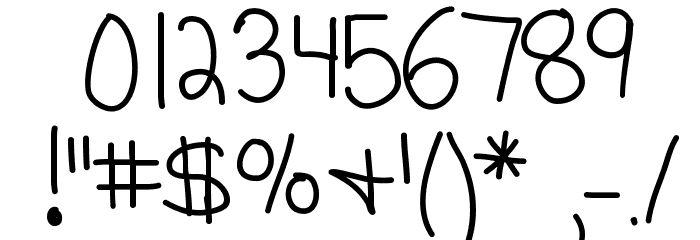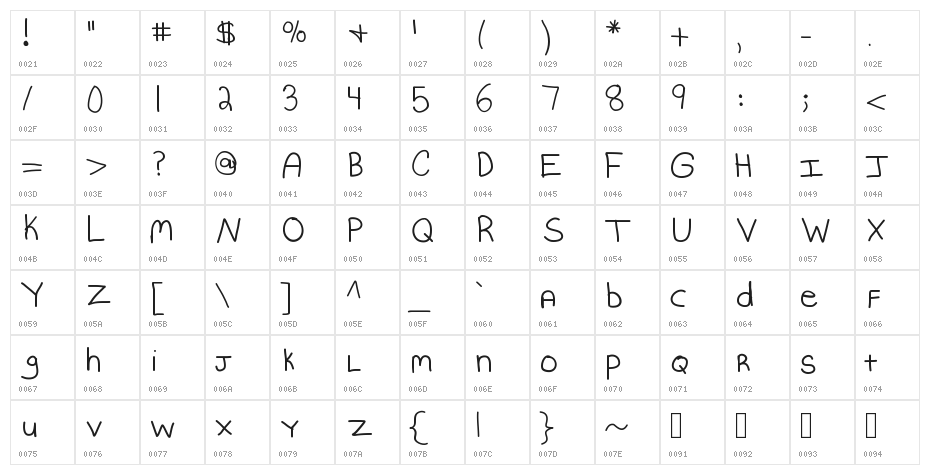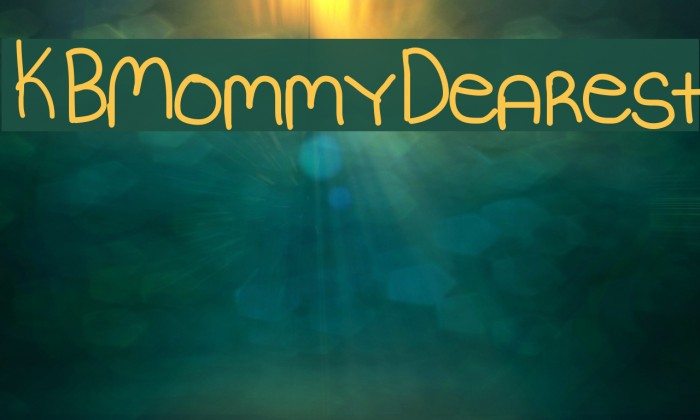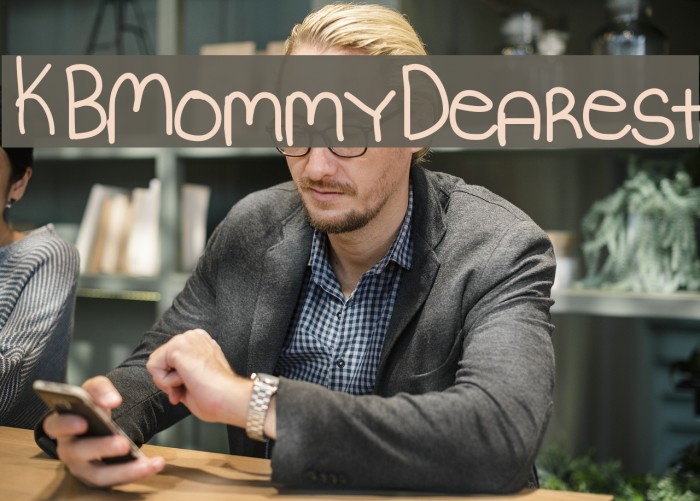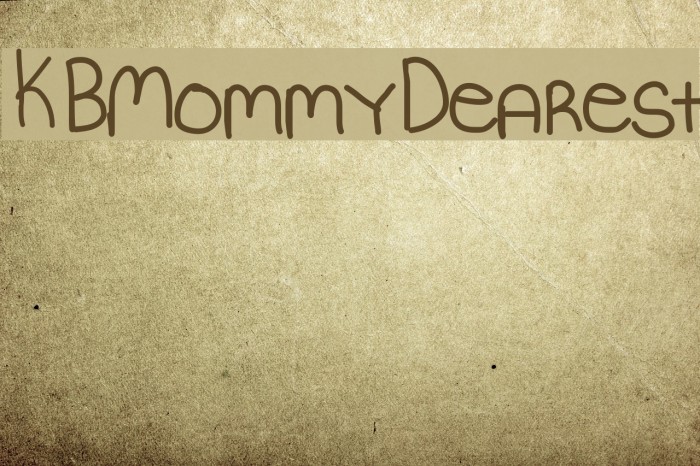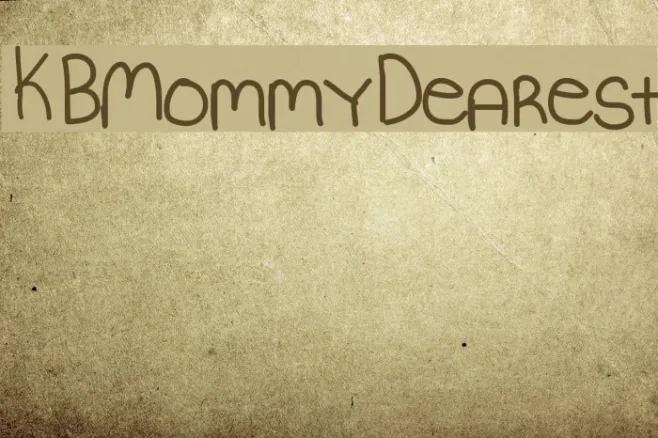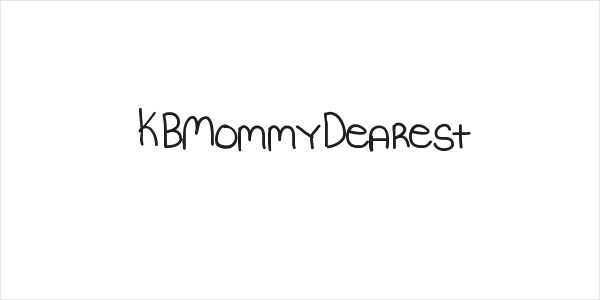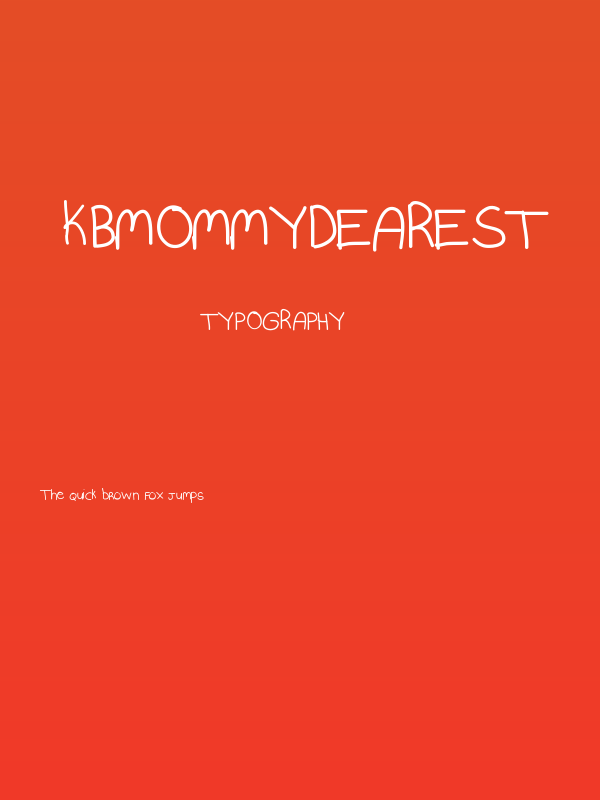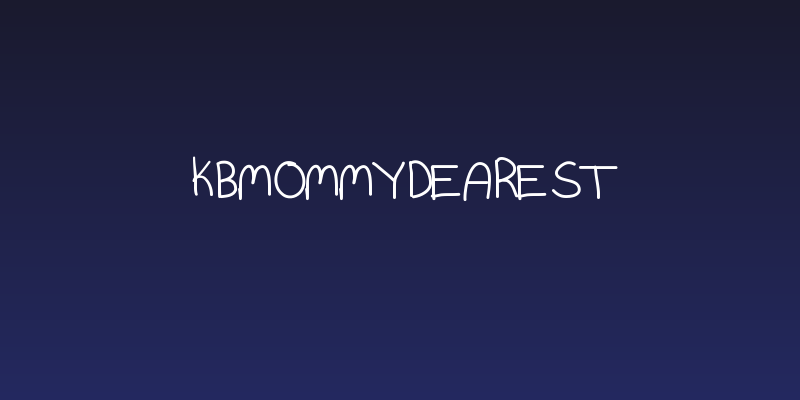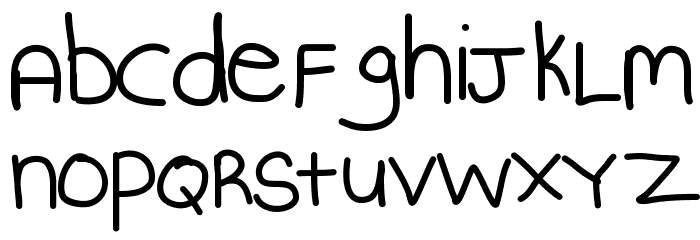
KBMommyDearest Font
KBMommyDearest Description
This playful and casual font features a handwritten style with a friendly and approachable appearance. The letters are rounded and slightly irregular, giving it a personal touch that mimics natural handwriting. The uppercase and lowercase characters maintain a consistent flow, while the numerals and special characters are crafted to match the overall style. This font is particularly suitable for projects that require a warm and informal tone, such as children's books, personal invitations, or creative branding. Its unique charm and readability make it versatile for various design needs.
| Proposed Projects | Ideal for children's books, personal invitations, and creative branding. |